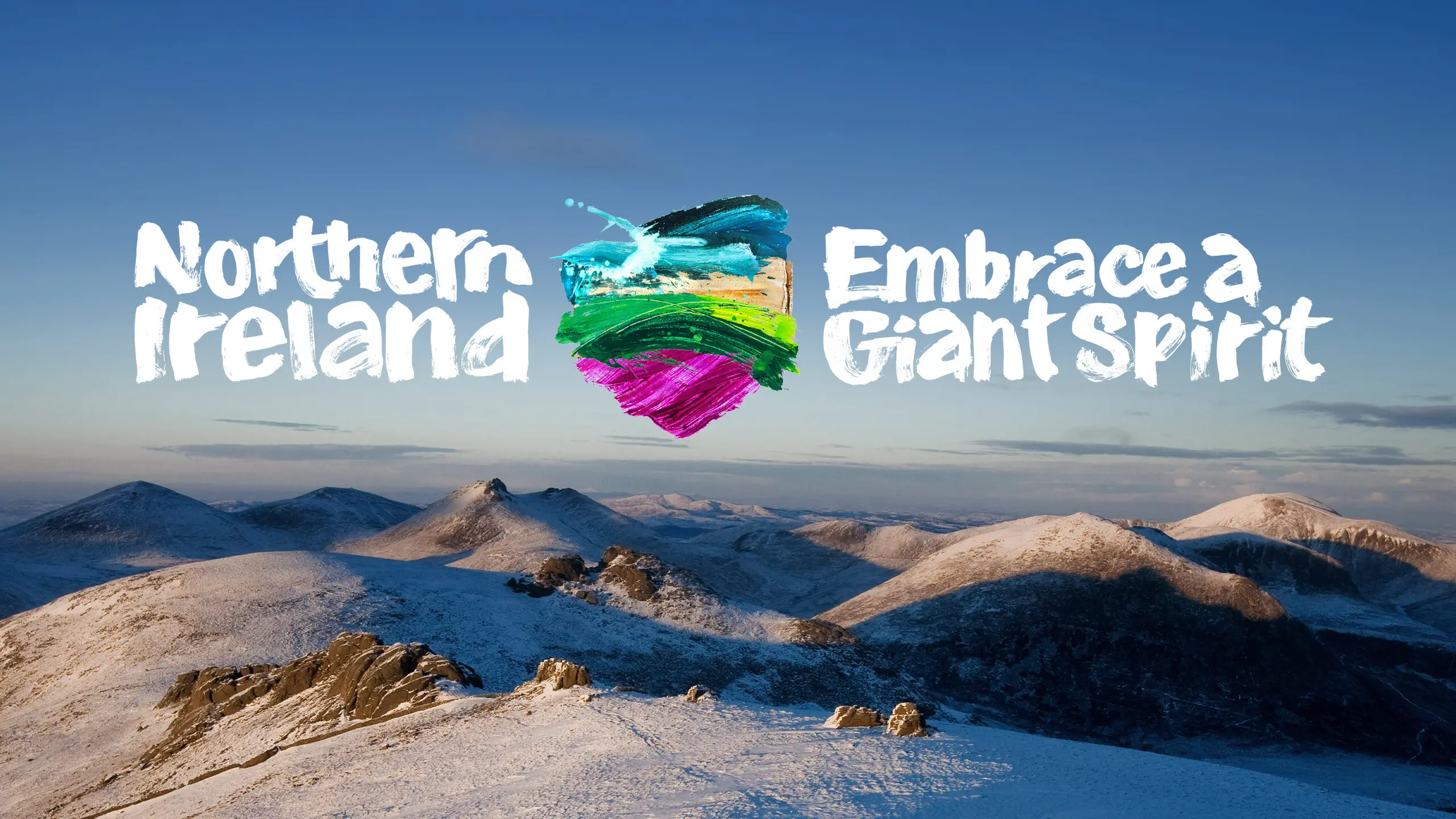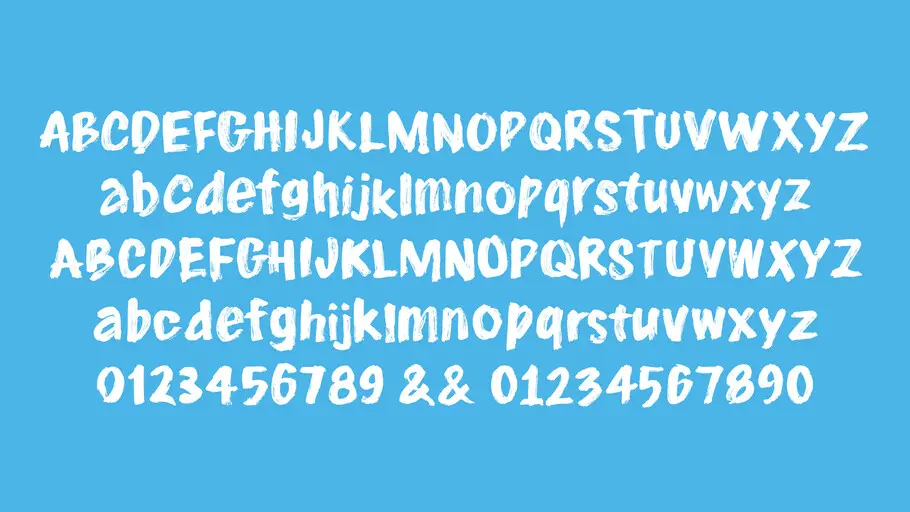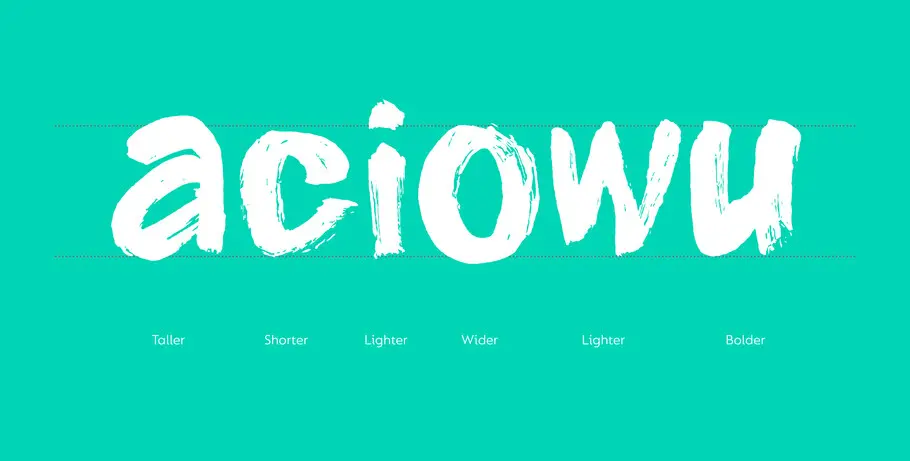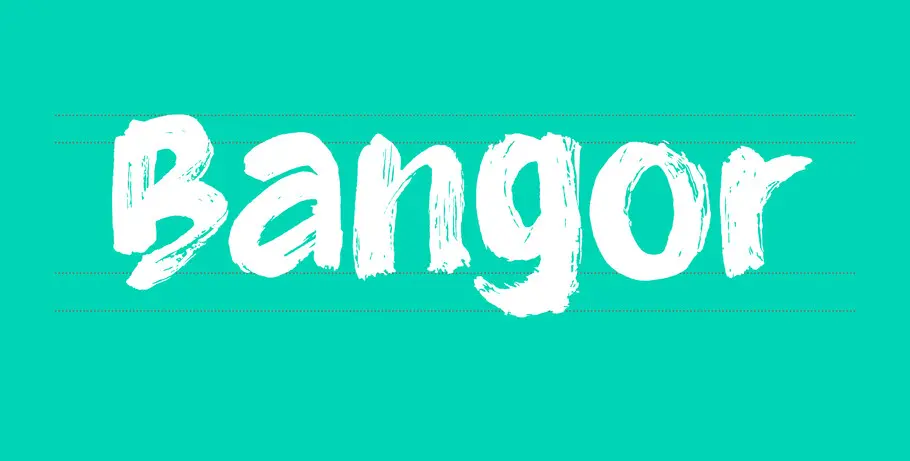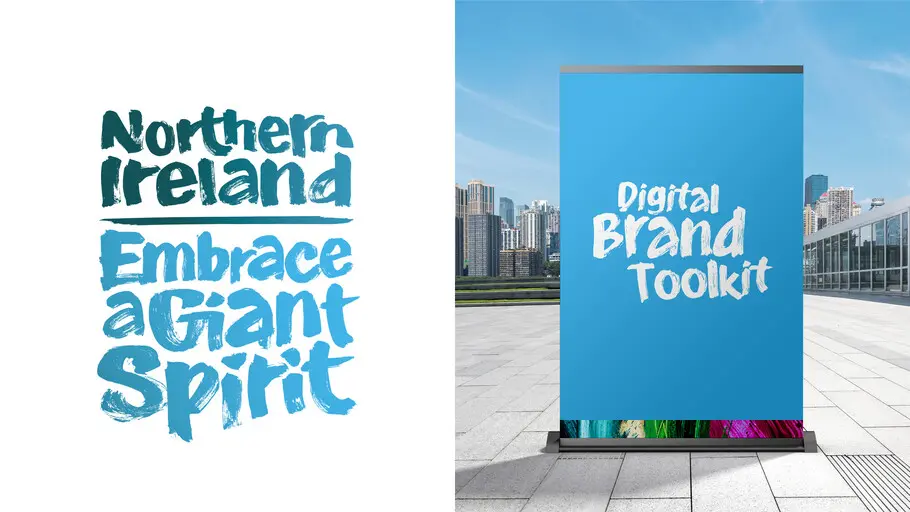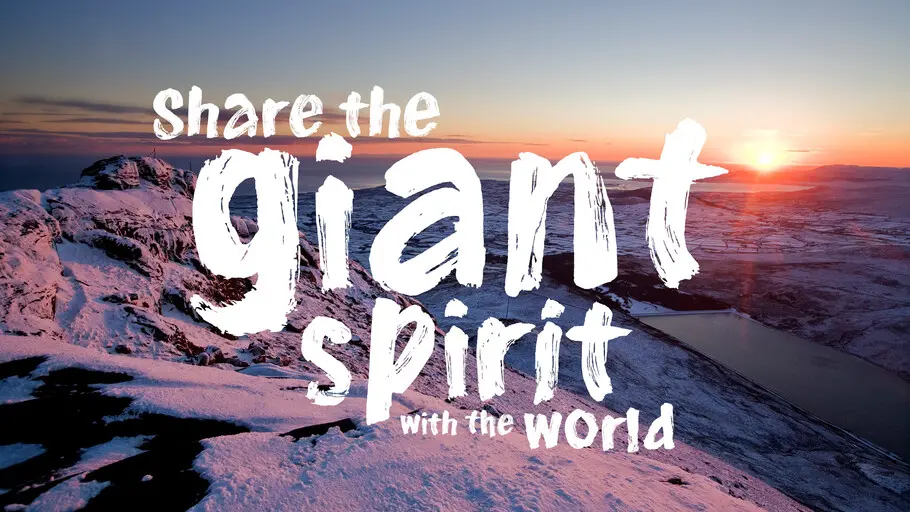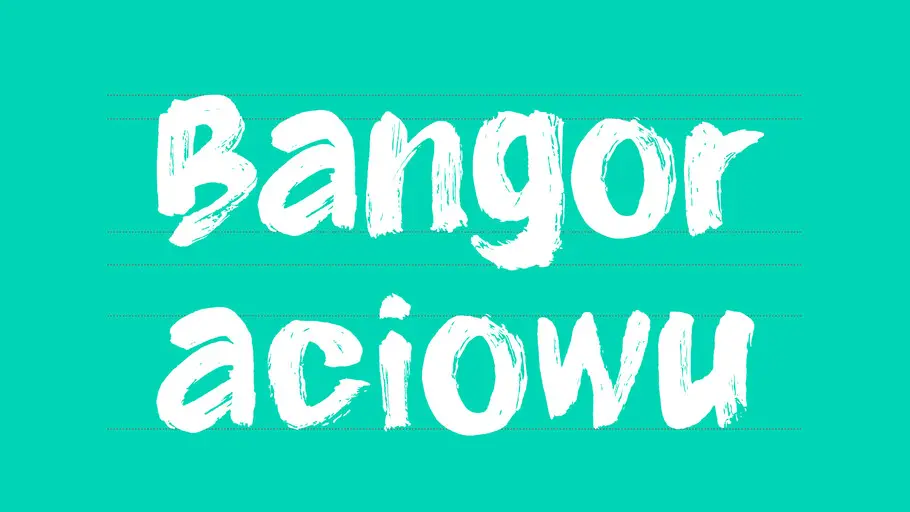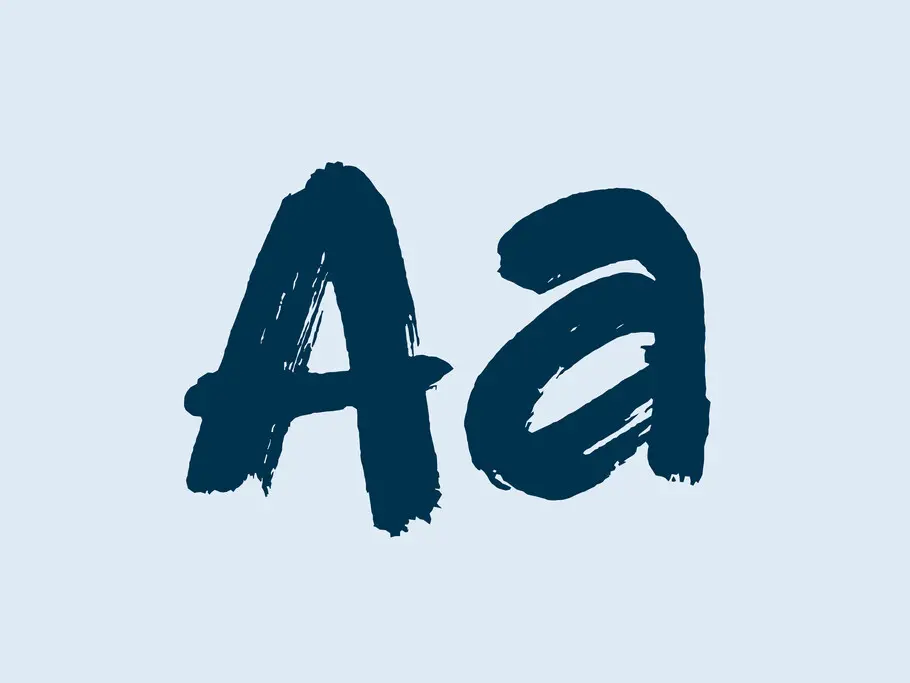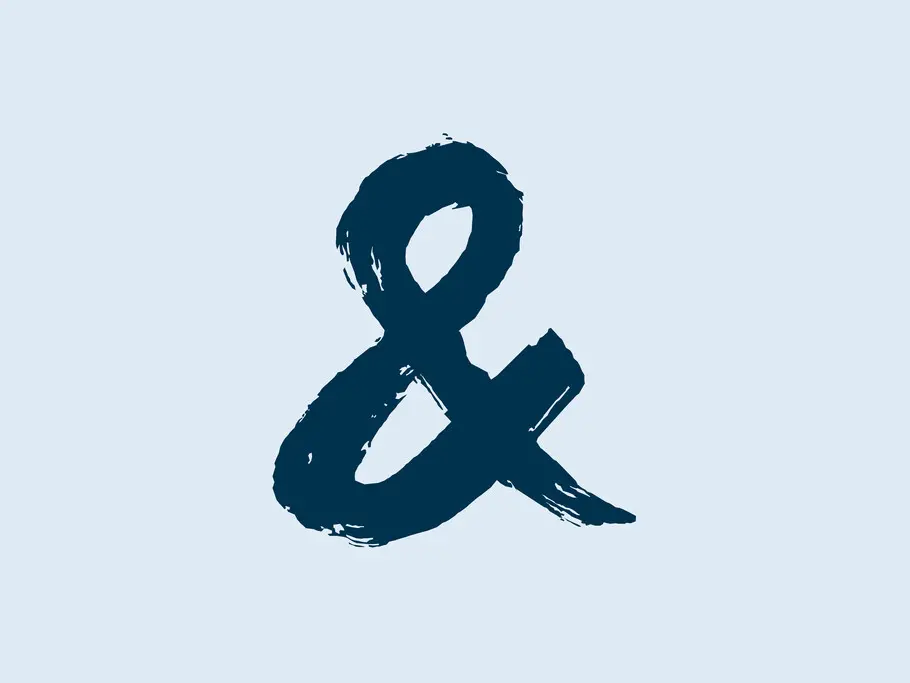
Tourism Northern Ireland.
A custom script font for Tourism Northern Ireland from Genesis Advertising in collaboration with artist Colin Davidson.
Brief.
Tourism NI is responsible for the development of tourism and the marketing of Northern Ireland as a tourist destination. Working closely with other tourism bodies, Tourism NI helps to develop and market Northern Ireland to its visitors. In 2010 Fontsmith worked with the brand to create its core corporate typeface and today we continue to support the brand. Our latest project is the new ‘giant’ script font.
‘Embrace a Giant Spirit’ is a new Tourism NI brand. It will communicate a high quality experience to Northern Irelands visitors, one that is recognisable as distinctively Northern Irish and aims to increase visitor numbers via an international campaign.
Northern Ireland based advertising agency Genesis asked us to help in the design and production of a new typeface in collaboration with internationally acclaimed artist Colin Davidson. Our role was to take his raw brush work and translate it into a workable font that retains the same spontaneity and freedom that his brush produces.
Approach.
Colin Davidson is a world-renowned contemporary portrait artist, living and working near Belfast, Northern Ireland. His subjects have included celebrities, presidents and even the Queen. His expert skill with a brush, Irish roots and connection to the area meant he was the perfect person to create the letterforms that we would use to make the new brand font.
After receiving the raw brushed letterforms from Colin, our first step was to carefully digitise them in a way that would retain as much detail and fine brush texture as possible. It was important to take into account technical limitations and the different environments the font would be used in. After some digital experimentation we found an optimal level of texture that kept much of the authentic brushyness but importantly remained legible and functional.
Genesis had a clear vision of how they wanted to use the new headline font; words stacked tightly on top of one another to make compact graphics that looked more like spontaneous one off lettering pieces. In order to accomplish this we made sure that ascenders and descenders were shortened and the capitals were positioned only slightly larger than the lowercase. This allowed for very tight line spacing with minimal letter clashing.
Delivery.
Two sets of both upper and lowercase letters have been included in the final font. This gives the typesetter greater control; they’re able to choose specific shapes that better suit certain situations. We have also programmed the font to make use of a randomisation feature. This avoids repeating the same character consecutively.
Tourism in Northern Ireland has grown over the past decade into a £1 billion industry. Tourism NI is projecting a doubling of tourism revenue by 2030. The campaign and the new script font entitled Giant Spirit is now used by the Tourism Northern Ireland brand under our exclusive Brandfont® license.
Darren Lyttle, Creative Director at Genesis said:
‘A unique font that is incredibly fun to work with.’
‘We had a very definite vision for a hand painted font that retained the unique personality of the artist's marks and the flexibility to design bespoke campaign headlines. The team at Fontsmith used their creativity and expertise to deliver a font that is the cornerstone of future campaigns for Tourism Northern Ireland.’
Phil is a Creative Type Director and type designer with many years of experience in the design and engineering of fonts for global brands. Working in collaboration with design studios and global clients, Phil understands the creative and business needs of brands looking to build continuity with type.